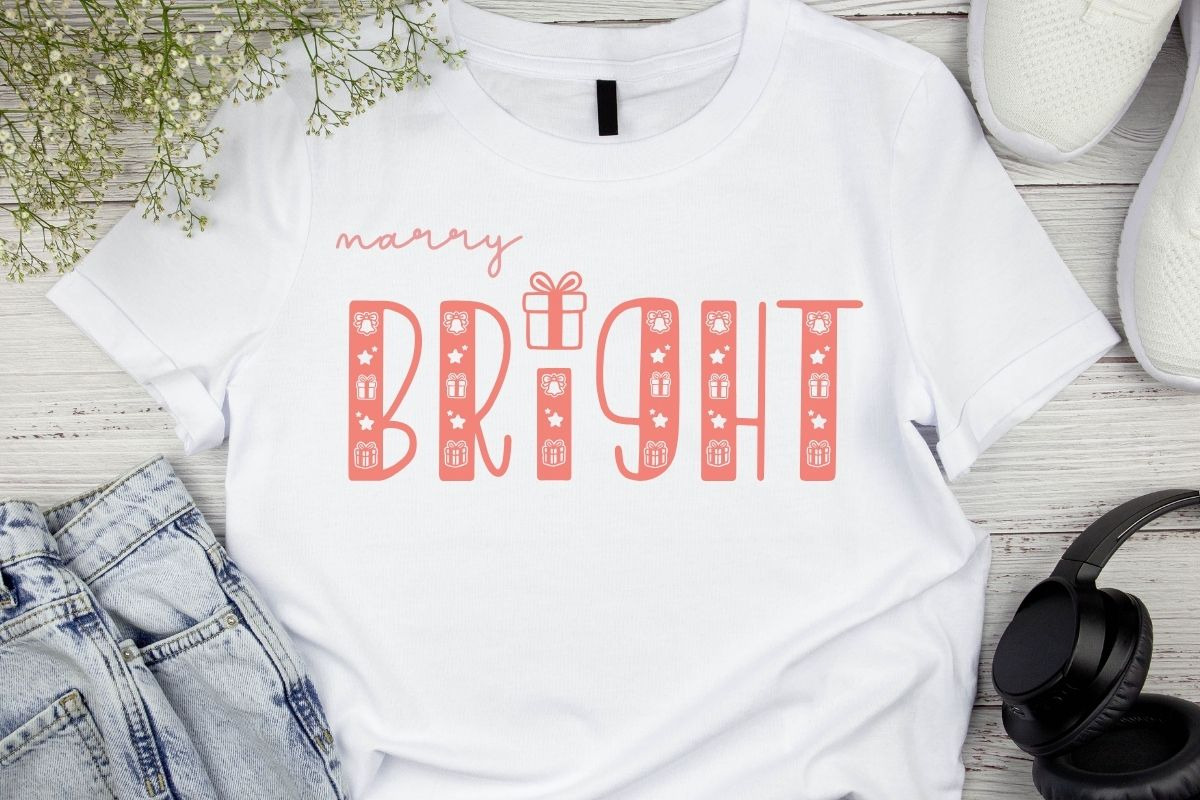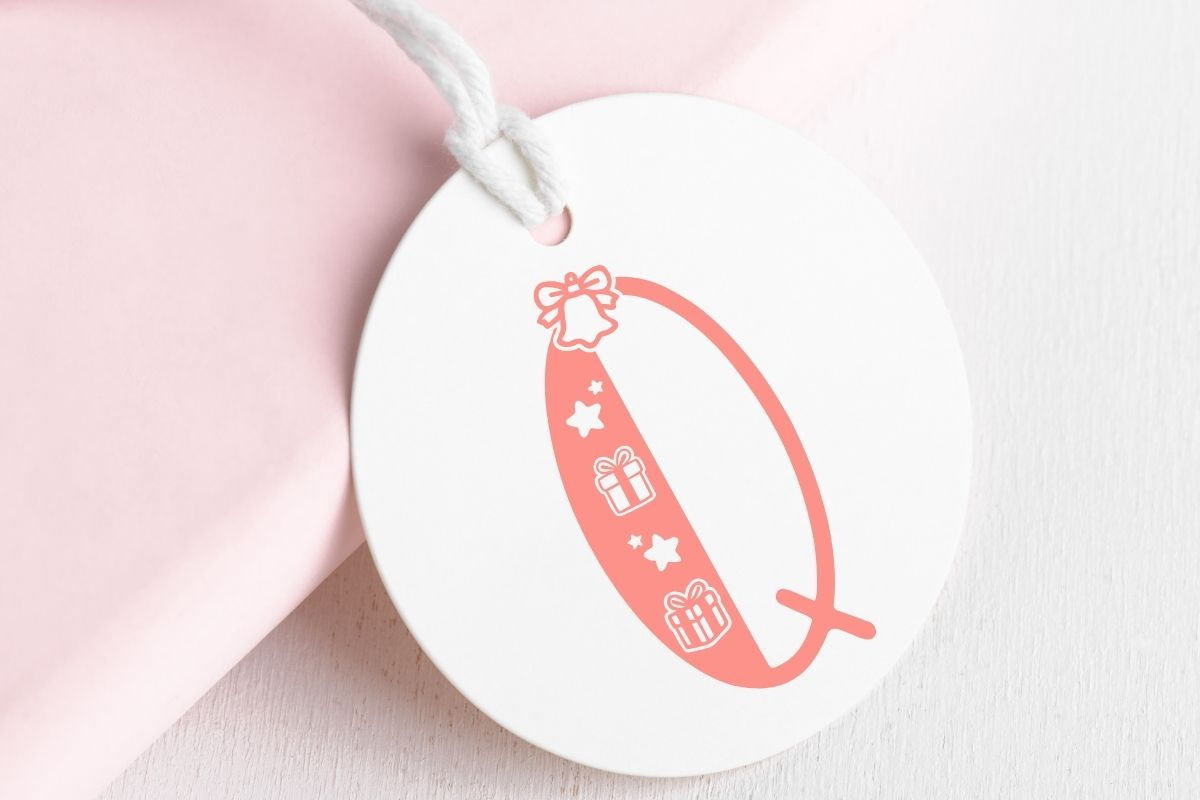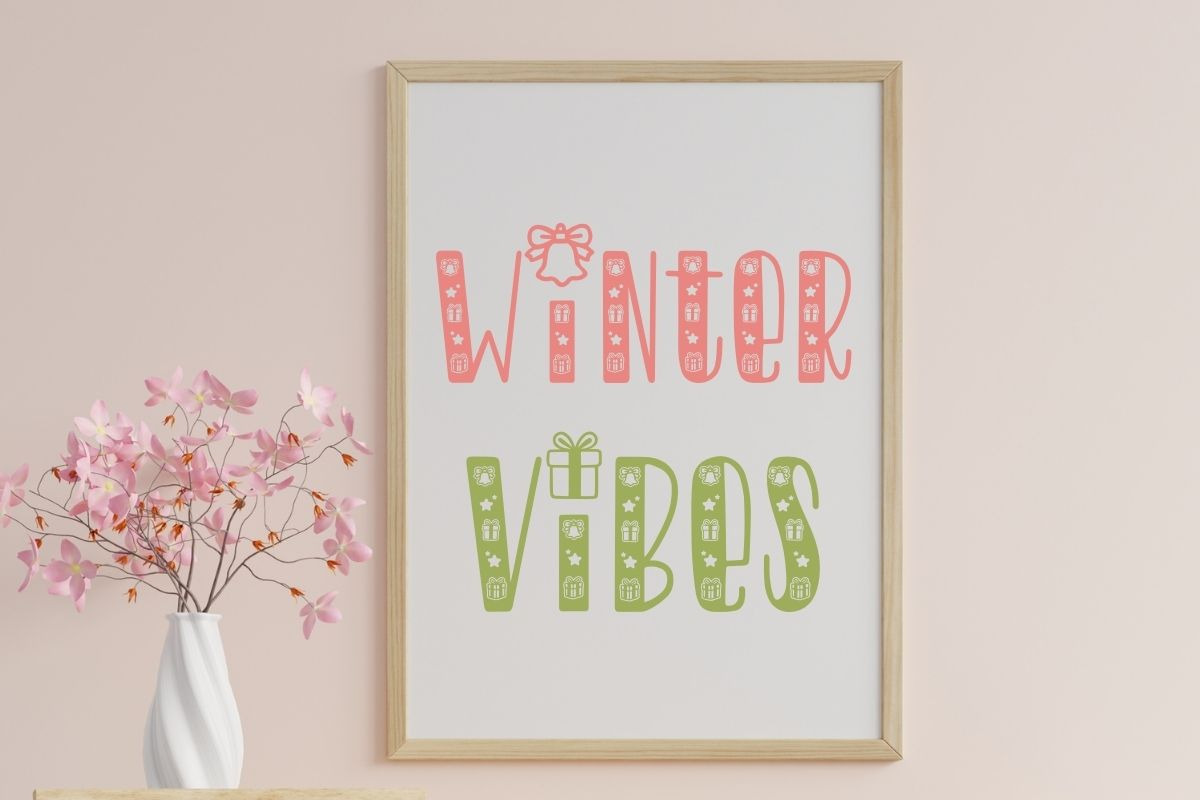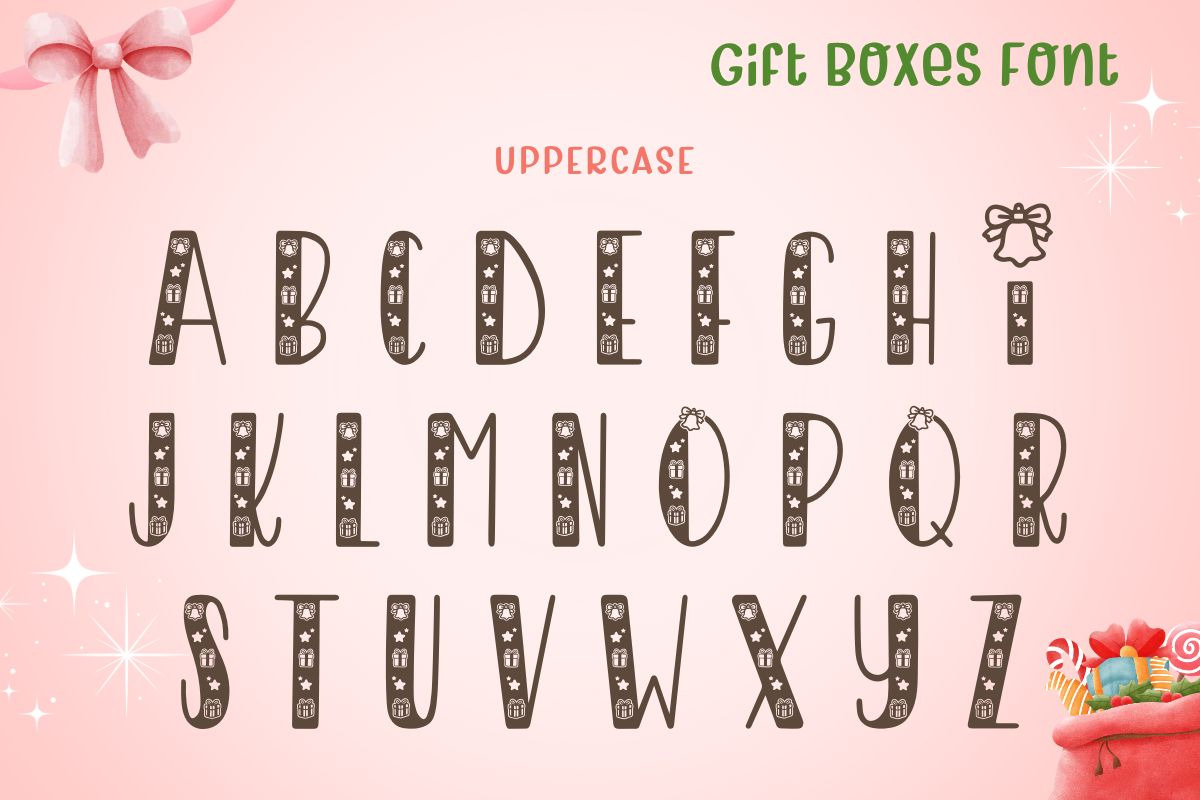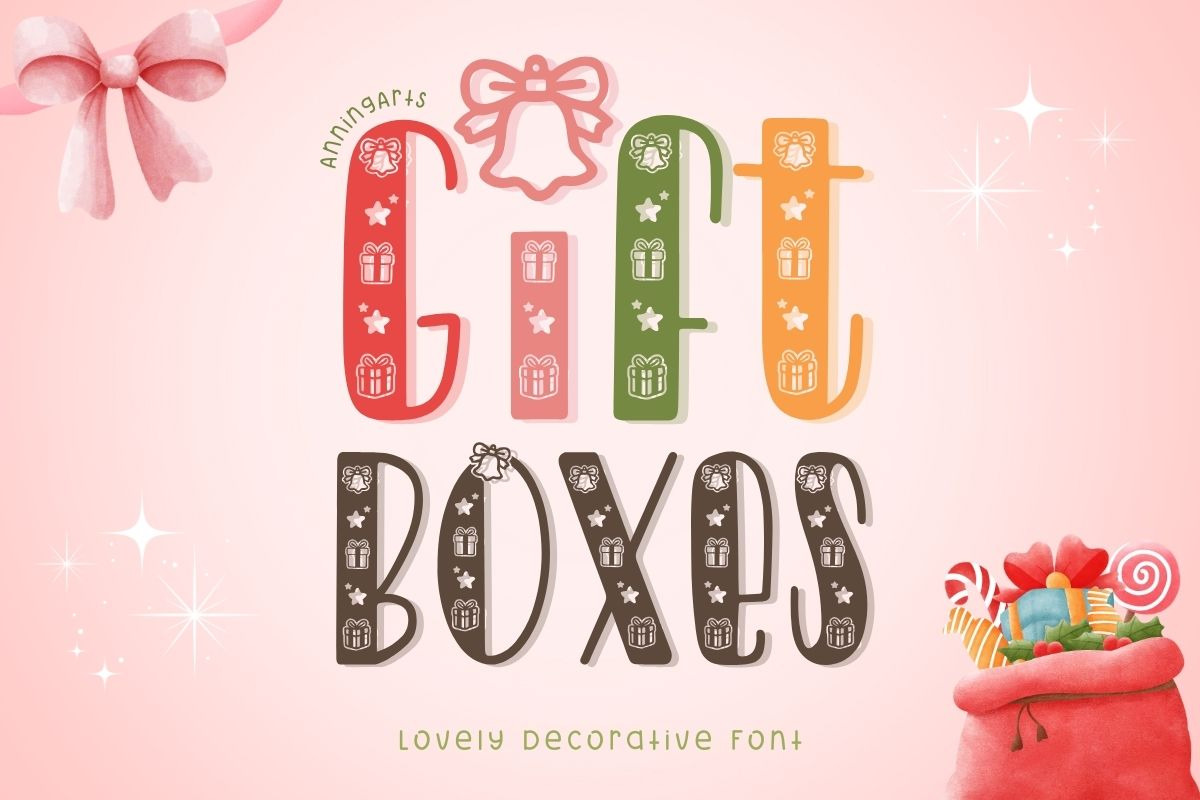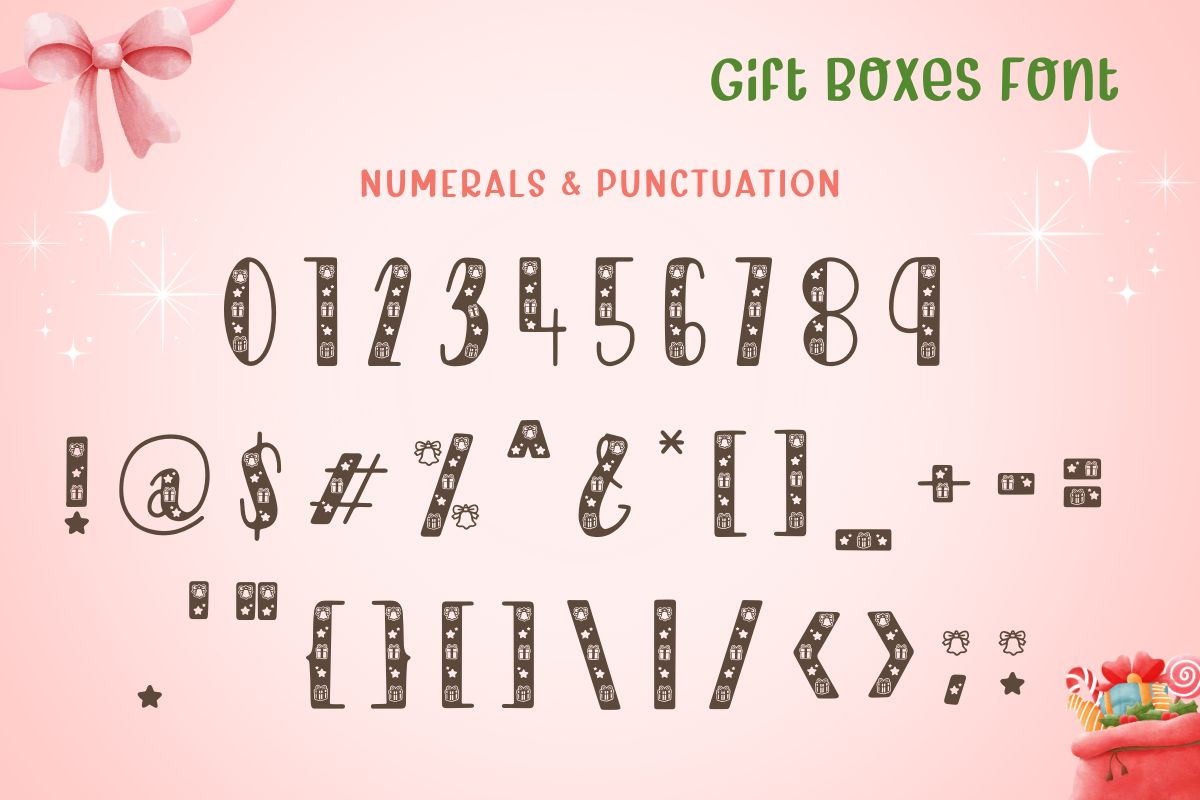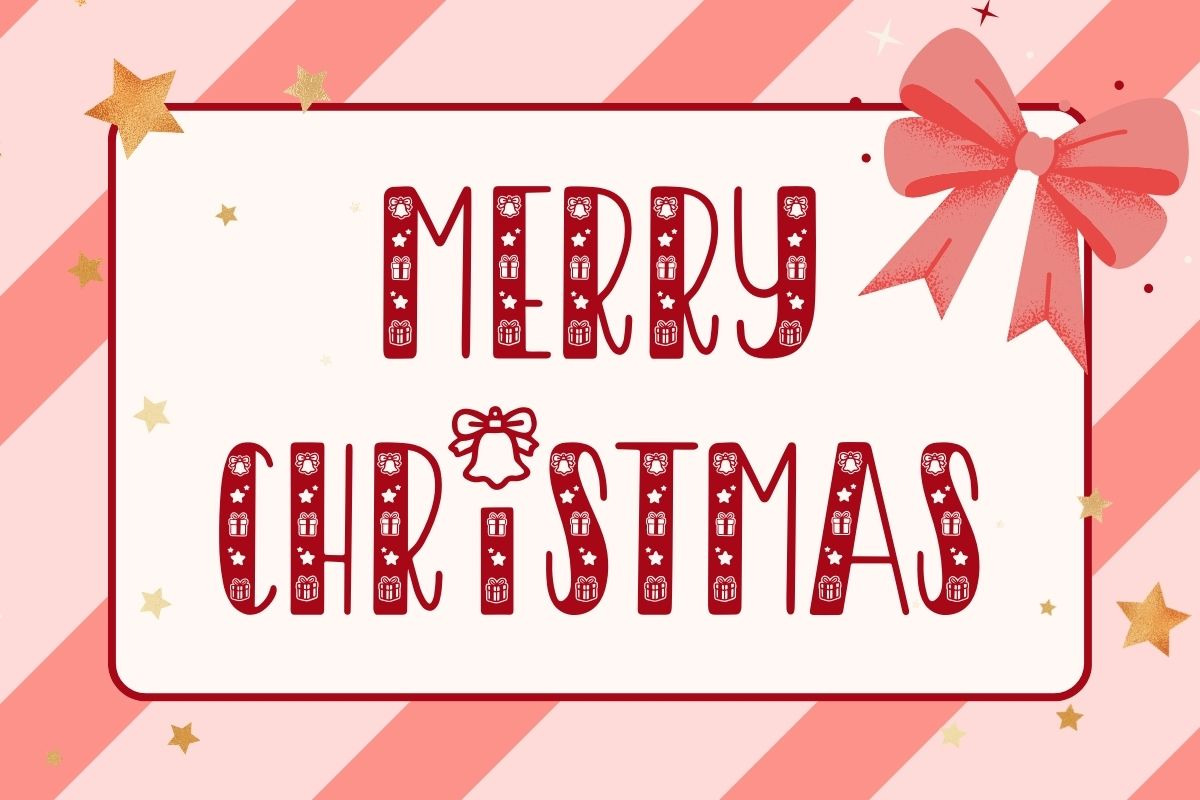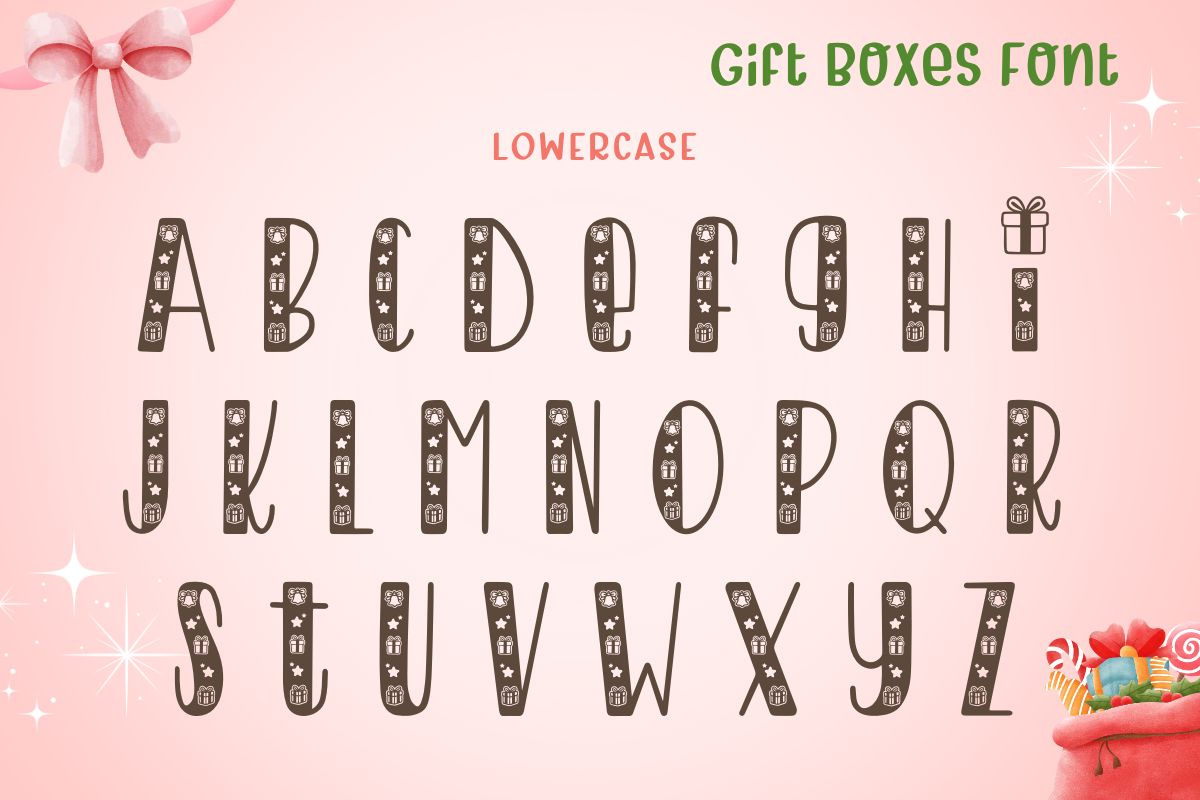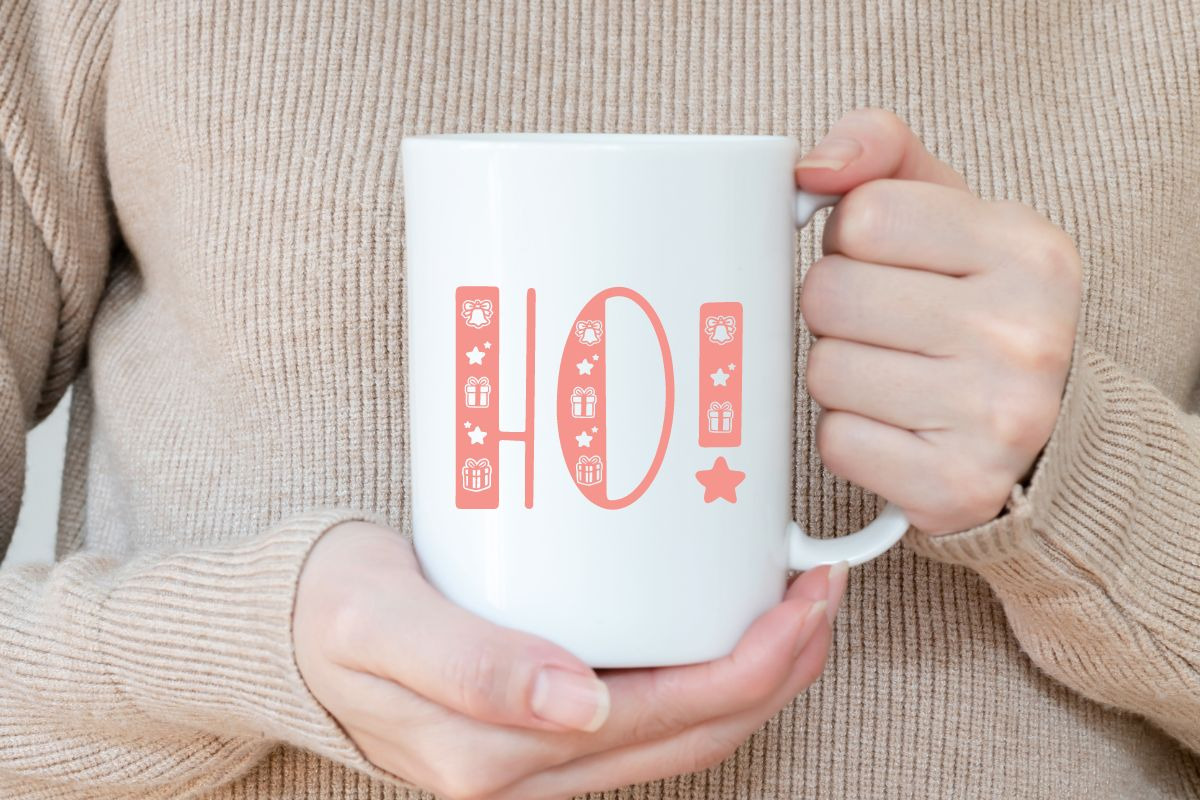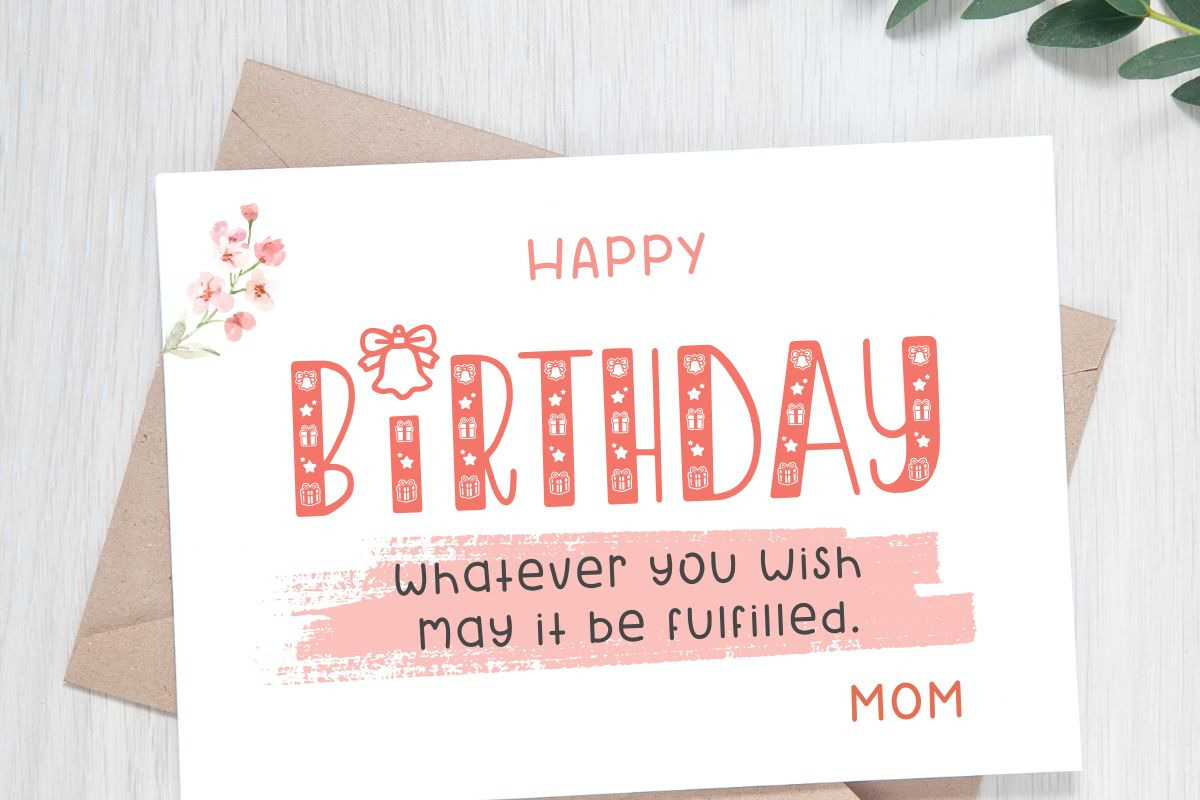
Gift Boxes - Deco Font
Gift Boxes font is a delightful and vibrant typeface decorated with gift boxes and Christmas elements in various colors. This font is perfect for projects that require beauty and a touch of nature, such as invitation cards, poster designs, or product packaging that needs a boost of cheerfulness and cuteness.